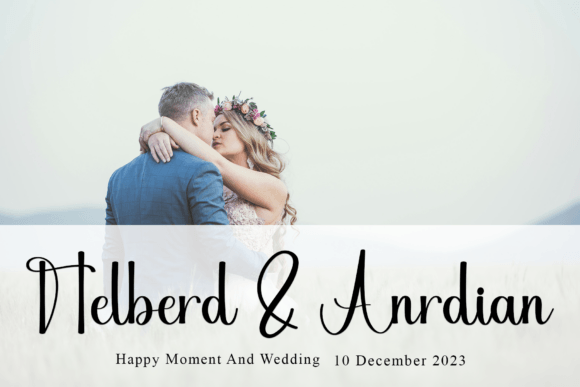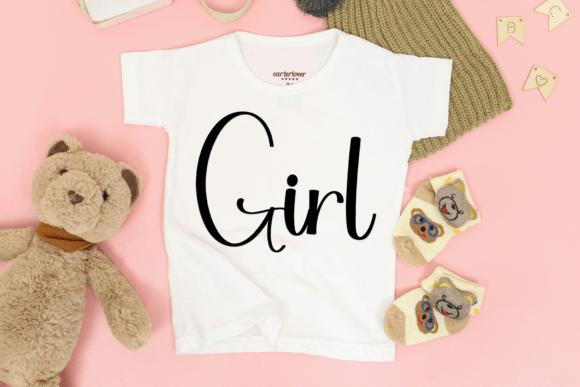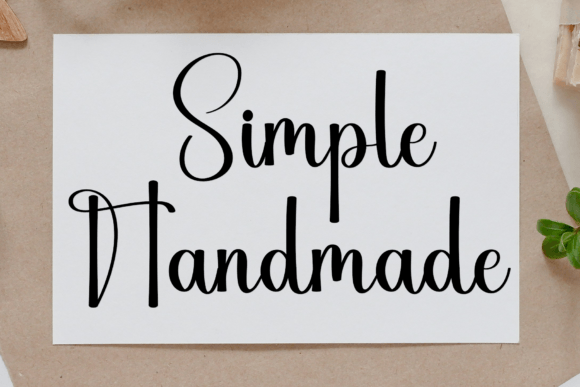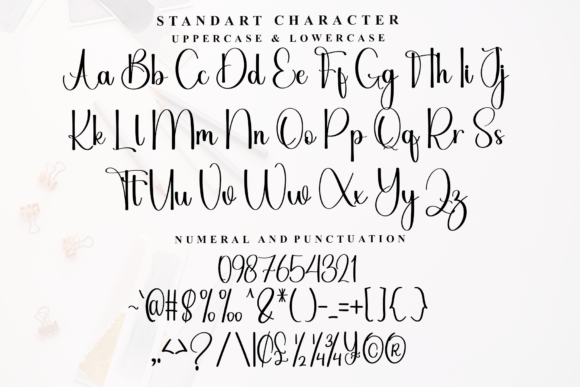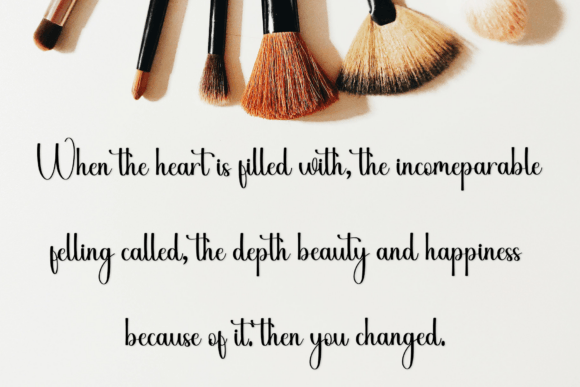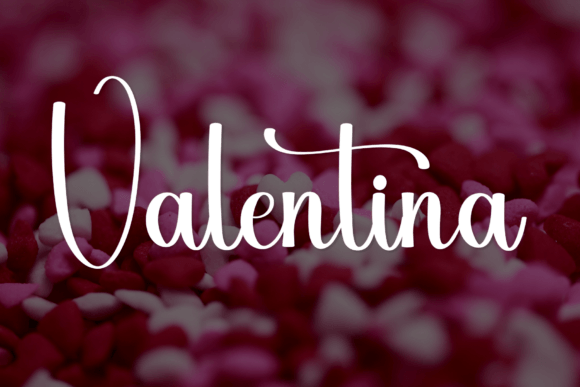
Dauting Birthday Font: Elevate Your Designs with a Unique and Attractive Typeface
In the world of design, typography plays a crucial role in conveying messages, expressing emotions, and creating visual identities. Among the numerous fonts available, Dauting Birthday stands out as a beautiful and attractive font that can add a touch of elegance and sophistication to various design projects. In this article, we’ll explore the features, benefits, and uses of Dauting Birthday Font, making it a must-have for designers, crafters, and anyone looking to elevate their creative work.
A Soft Touch with a Unique Twist
Dauting Birthday Font is crafted with a soft touch, making it instantly appealing to the eye. Its unique and distinctive strokes set it apart from other fonts, giving it a character that’s both modern and timeless. The font’s design is carefully thought out to convey a sense of warmth, friendliness, and approachability, making it perfect for designs that require a personal touch.
Meaningful and Versatile
The name “Dauting Birthday” may evoke a sense of celebration and joy, but the font’s meaning goes beyond its name. It represents a bright future, filled with possibilities and promise. This font is designed to inspire creativity, positivity, and optimism, making it an excellent choice for designs that aim to uplift and motivate.
Extensive Character Set
One of the standout features of Dauting Birthday Font is its extensive character set. With a wide range of characters, designers can experiment with various combinations to create unique and captivating designs. Whether you’re working on a logo, poster, or social media graphic, this font has got you covered. From uppercase and lowercase letters to numbers and special characters, Dauting Birthday Font offers the versatility you need to bring your creative vision to life.
Perfect for Various Applications
- Posters, flyers, and brochures
- Social media graphics and ads
- Handicrafts and DIY projects
- Stationery and invitations
Why Choose Dauting Birthday Font?
So, what sets Dauting Birthday Font apart from other fonts? Here are a few reasons why designers and crafters love this font:
- Unique and distinctive: Dauting Birthday Font offers a fresh and original take on traditional typography.
- Versatile: With a wide range of characters and compatibility with various applications, this font adapts to your design needs.
- Attractive and engaging: The font’s soft touch and modern design make it perfect for designs that require a personal touch.
- Meaningful: Dauting Birthday Font represents a bright future, filled with possibilities and promise.
Dauting Birthday Font is a beautiful and attractive font that can elevate your designs to new heights. With its unique and distinctive strokes, extensive character set, and versatility, this font is perfect for designers, crafters, and anyone looking to add a touch of elegance and sophistication to their creative work. Whether you’re working on a logo, poster, or social media graphic, Dauting Birthday Font is an excellent choice for anyone seeking to create visually stunning and engaging designs.